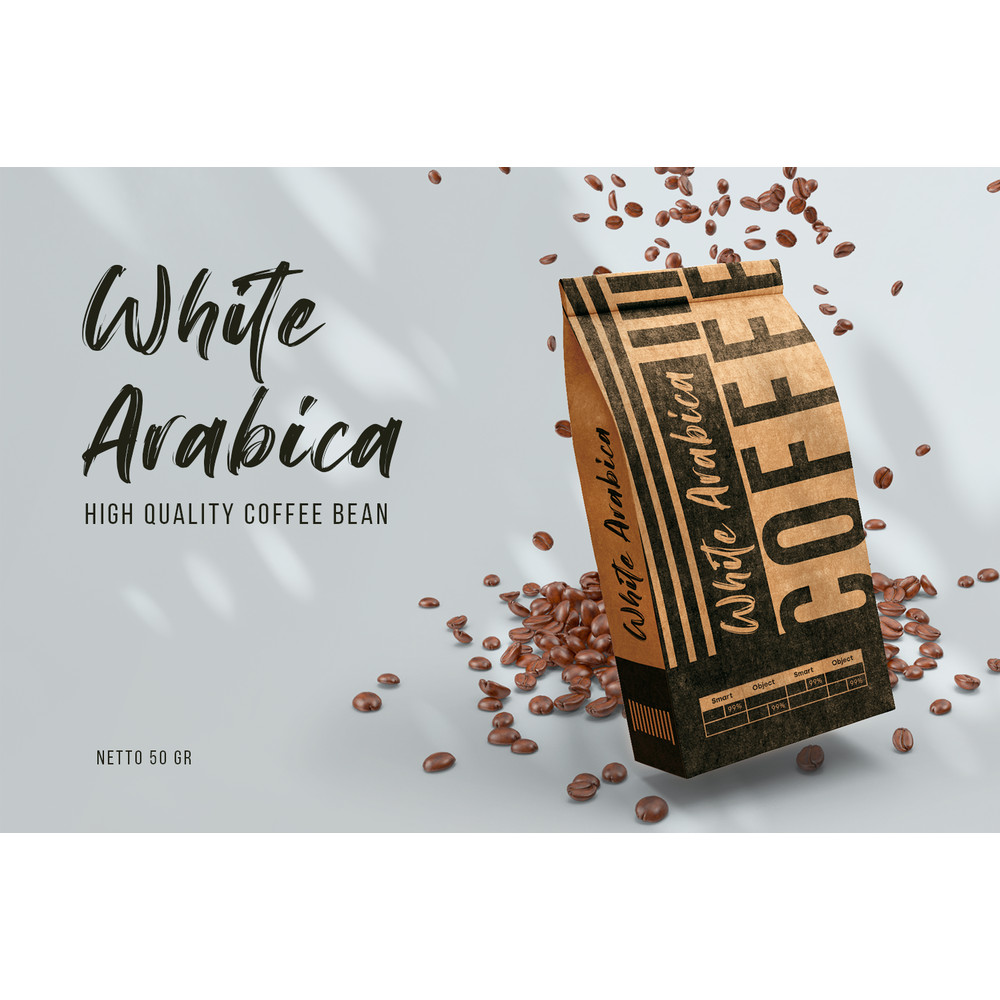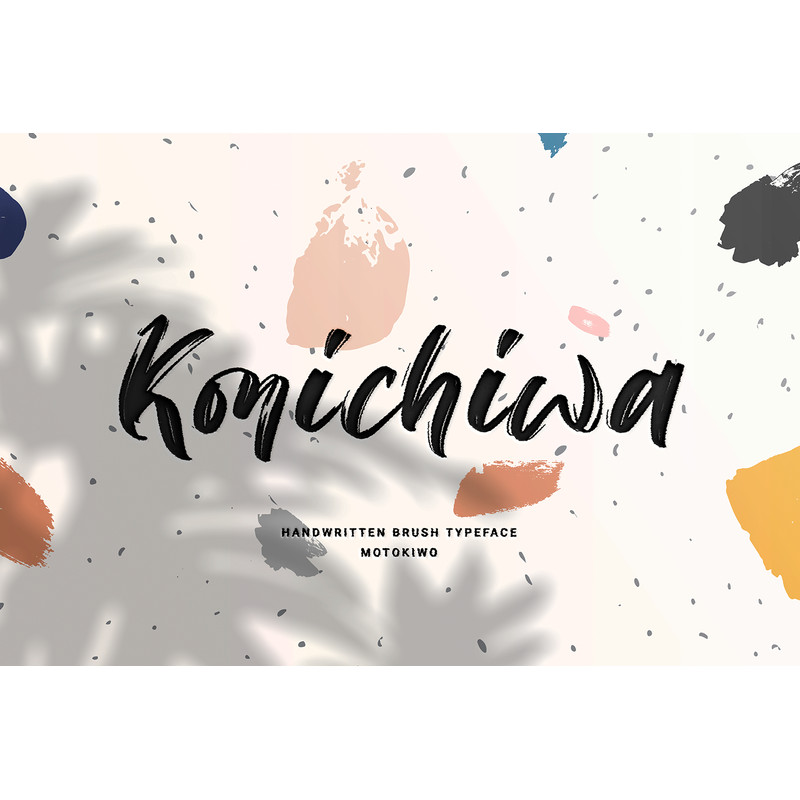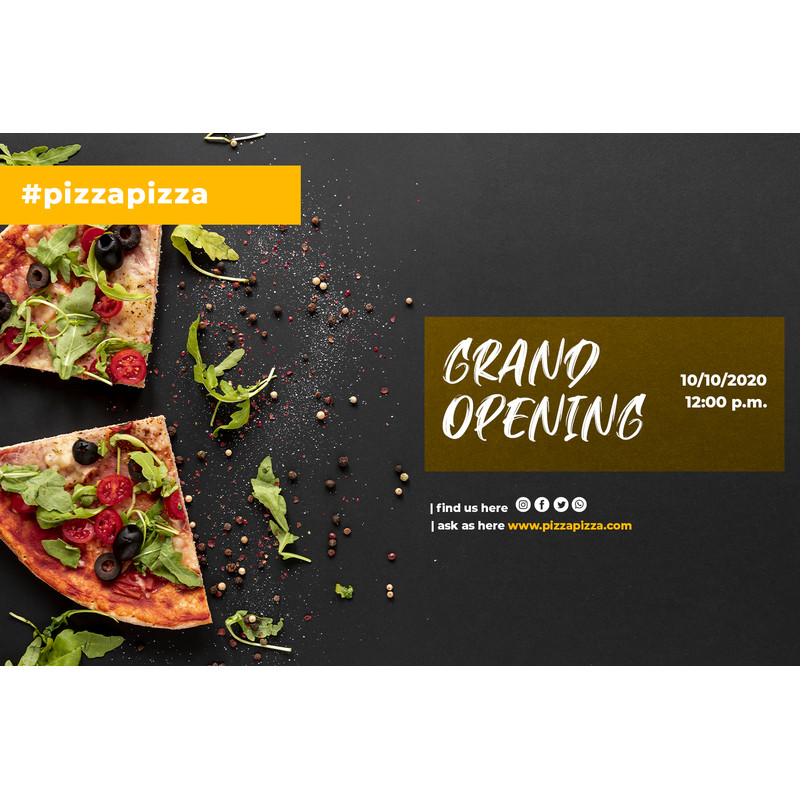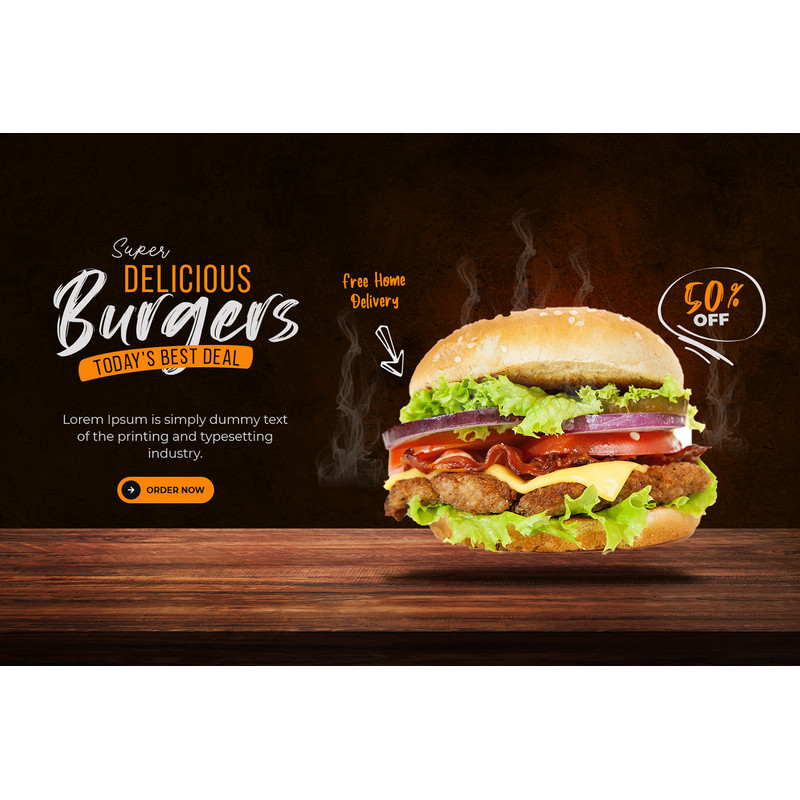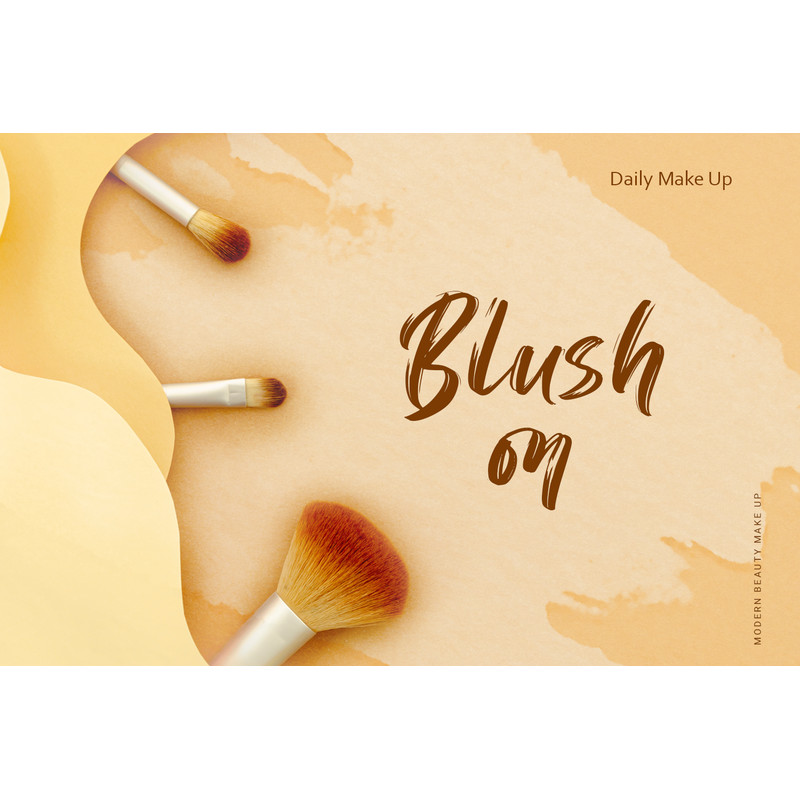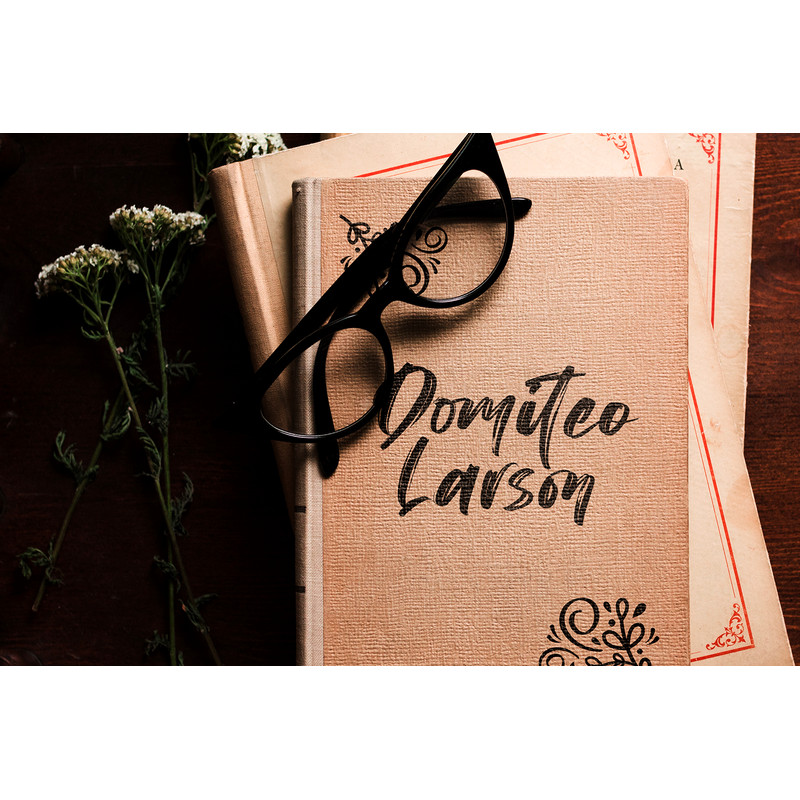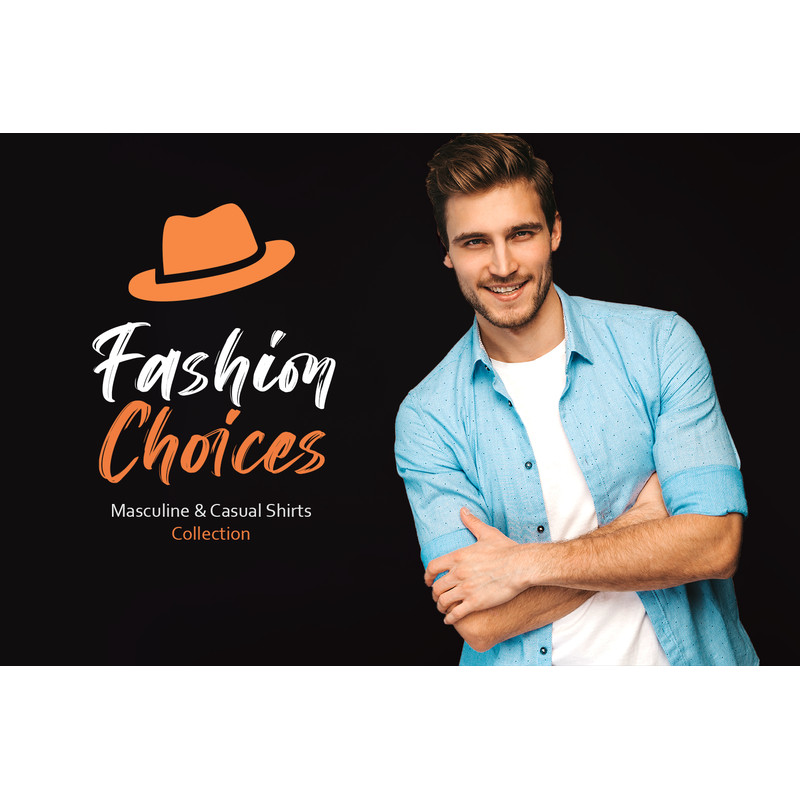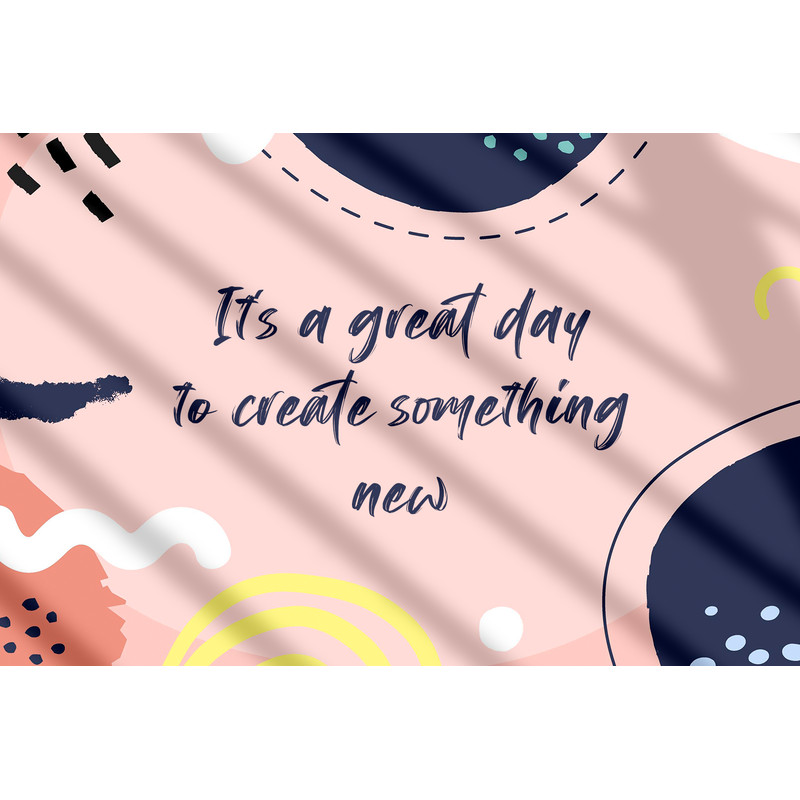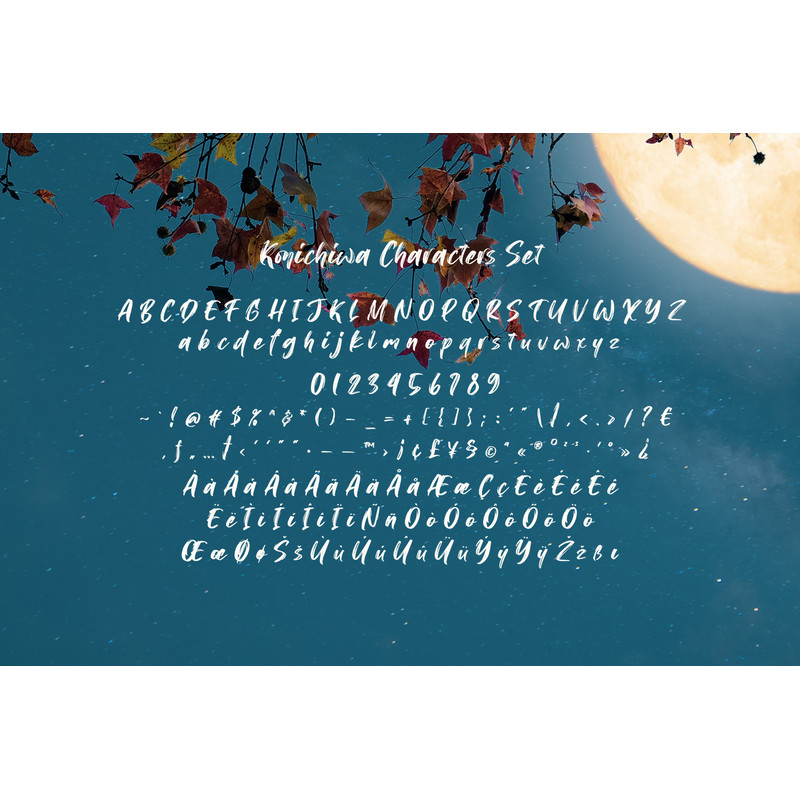
Konichiwa Brush Font Trending Fonts - Digital Font
Brush textured with casual handwritten gesture, say hi to Konichiwa. This is hot and tasty font that very recommended for food branding such as Burger, BBQ, Coffee and Pizza. It’s also great for fashion and cosmetic projects that need diversity.